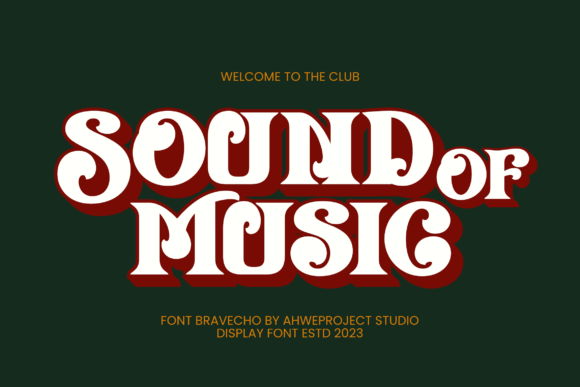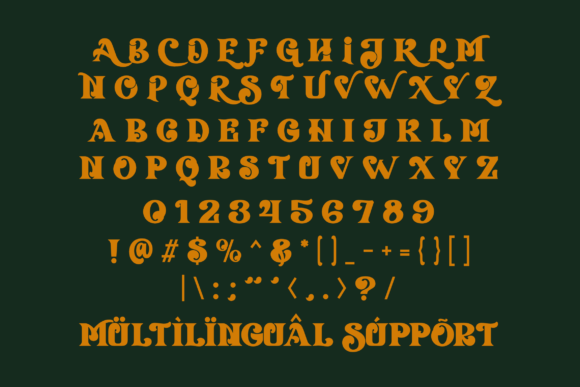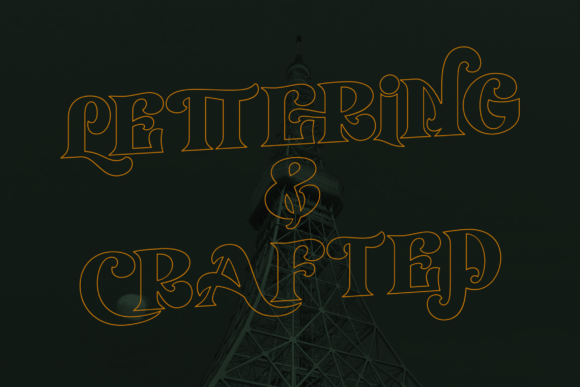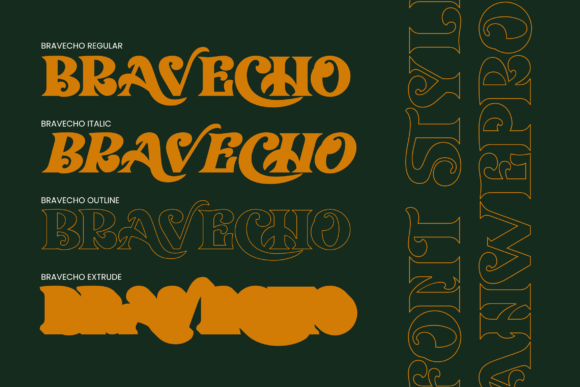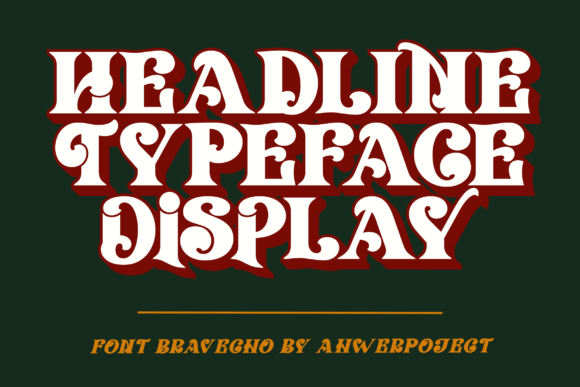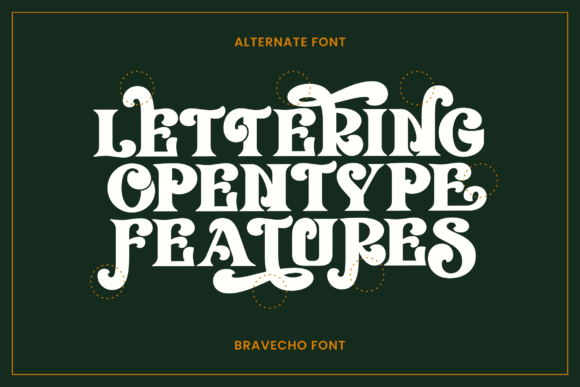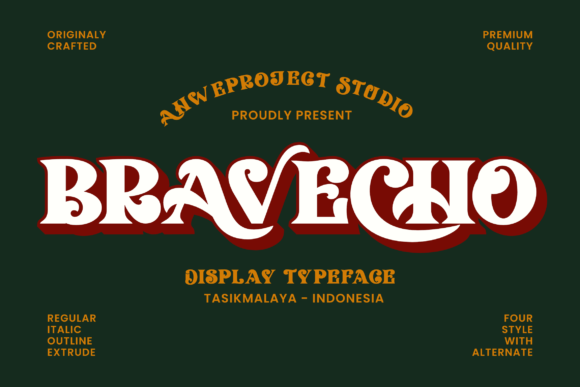
Bravecho Font: Elevate Your Designs with a Highly Detailed Serif Display Font
Are you tired of using the same old fonts for your designs? Look no further than Bravecho, a highly detailed and distinct display font that’s sure to take your creative ideas to the next level. With its masterful design and PUA encoding, Bravecho is the perfect choice for designers and crafters looking to add a touch of elegance and sophistication to their work.
What Makes Bravecho Stand Out?
Bravecho is a serif display font that’s designed to make a statement. Its highly detailed and intricate design makes it perfect for use in a variety of design projects, from logos and branding to headings and titles. The font’s distinctive style is sure to grab attention and leave a lasting impression on your audience.
One of the key features that sets Bravecho apart is its PUA (Private Use Area) encoding. This means that you can access all of the font’s glyphs and swashes with ease, giving you maximum flexibility and creative control. Whether you’re looking to add a touch of whimsy or a dash of drama to your design, Bravecho’s got you covered.
With Bravecho, the design possibilities are endless. Use it to create stunning logos, eye-catching headings, and attention-grabbing titles. The font’s versatility makes it perfect for use in a wide range of design projects, from:
- Headings and titles
- Business cards and stationery
- Web headers and banners
Whether you’re a professional designer or a crafty DIY enthusiast, Bravecho is the perfect choice for anyone looking to add a touch of elegance and sophistication to their designs.
Why Choose Bravecho?
So why choose Bravecho over other display fonts on the market? Here are just a few reasons why Bravecho stands out:
- Highly detailed design: Bravecho’s intricate design makes it perfect for use in high-end designs where attention to detail is key.
- PUA encoding: With PUA encoding, you can access all of the font’s glyphs and swashes with ease, giving you maximum creative control.
- Versatility: Bravecho is perfect for use in a wide range of design projects, from logos and branding to headings and titles.
Tips for Using Bravecho
Here are a few tips for getting the most out of Bravecho:
- Experiment with different sizes: Bravecho looks great in a variety of sizes, from large headings to smaller body text.
- Play with glyphs and swashes: With PUA encoding, you can access all of the font’s glyphs and swashes with ease. Experiment with different combinations to add visual interest to your design.
- Pair it with other fonts: Bravecho pairs well with a variety of other fonts. Experiment with different combinations to find the perfect look for your design.